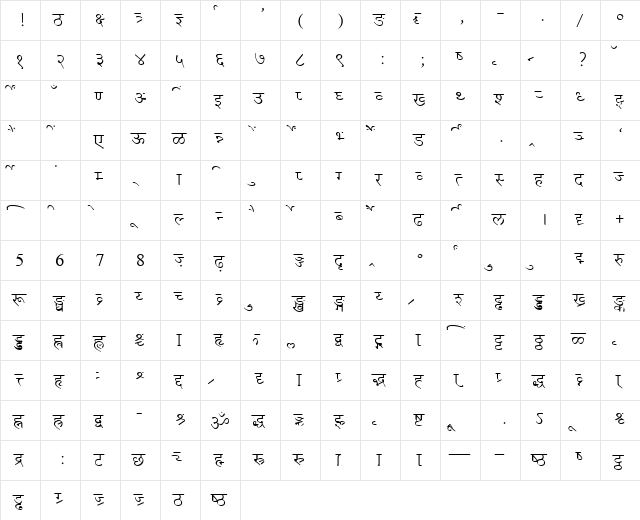
AkrutiDevBharati Normal
Design Context for AkrutiDevBharati Typeface
AkrutiDevBharati is a composed and adaptable typeface that performs quietly and consistently across a wide range of design contexts.